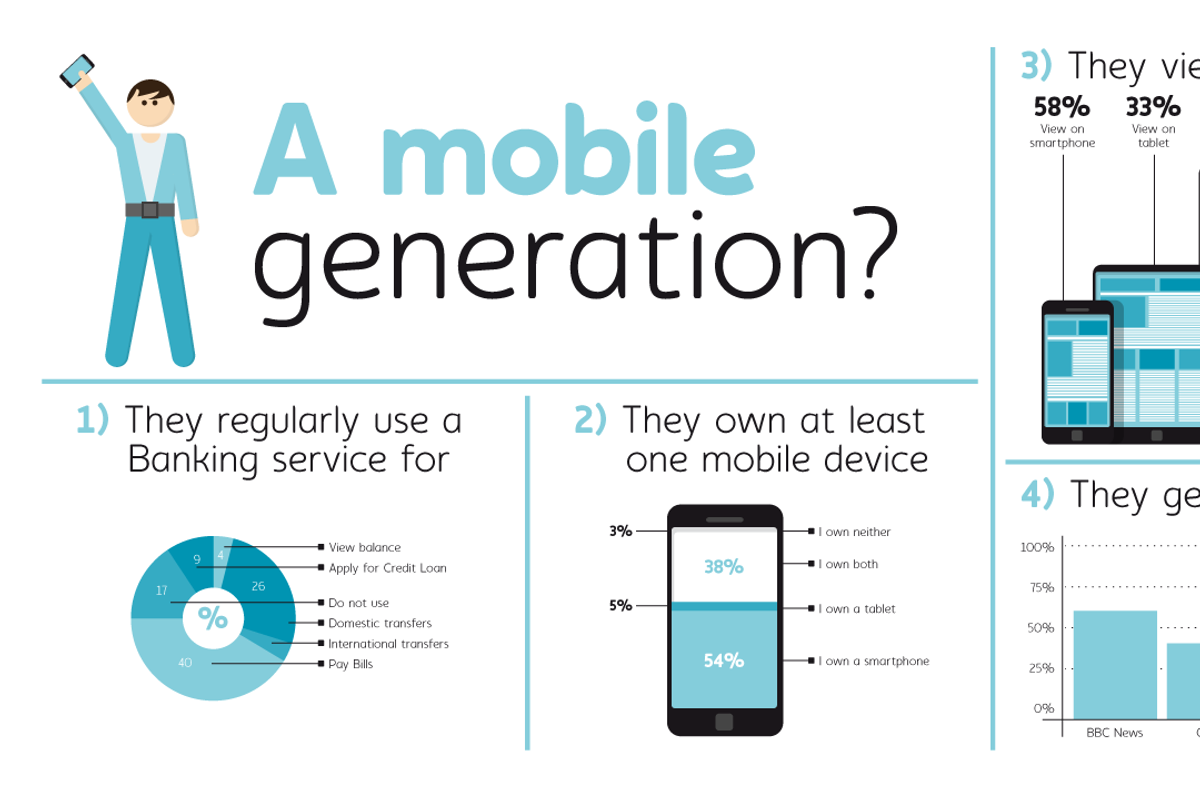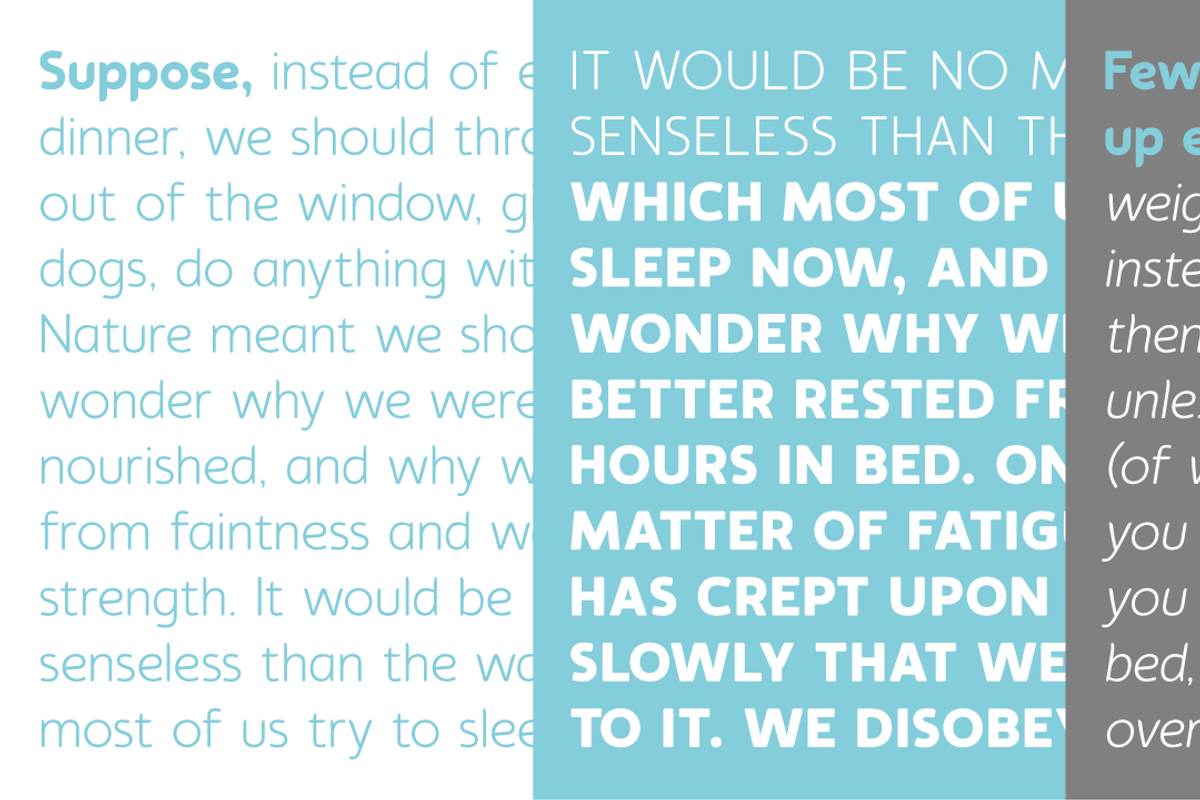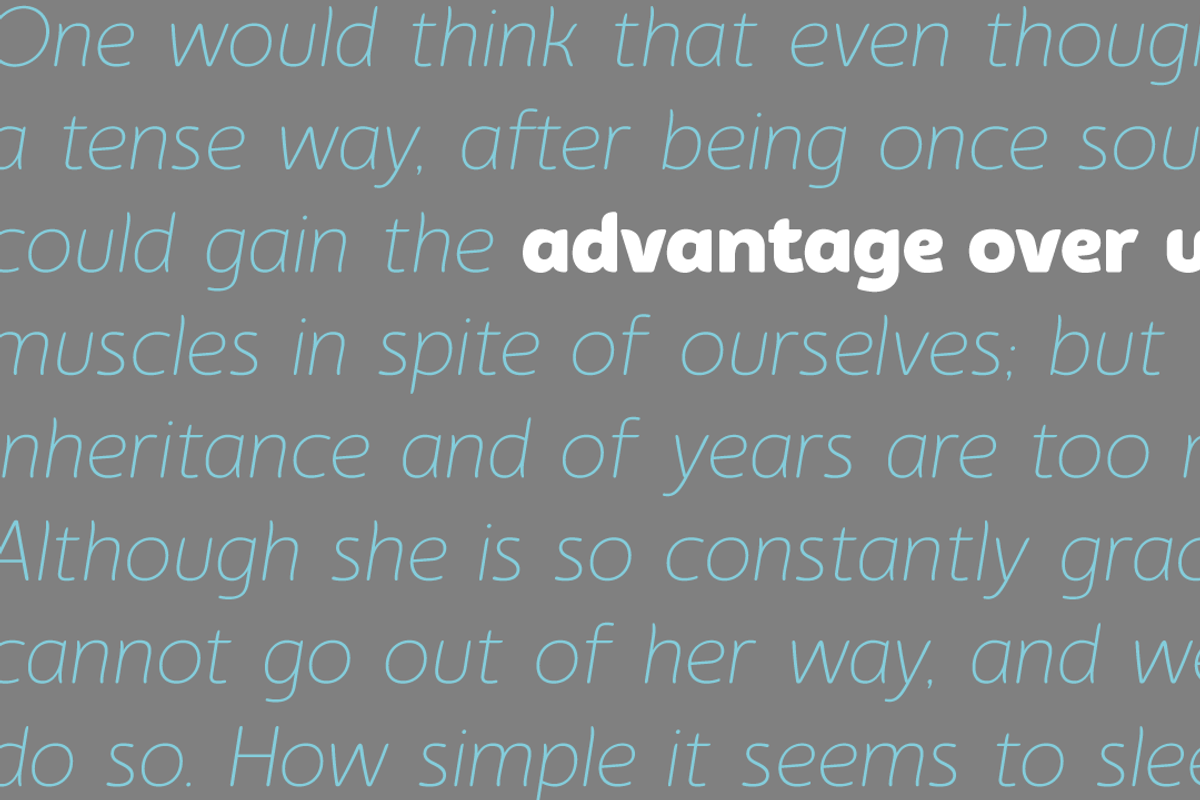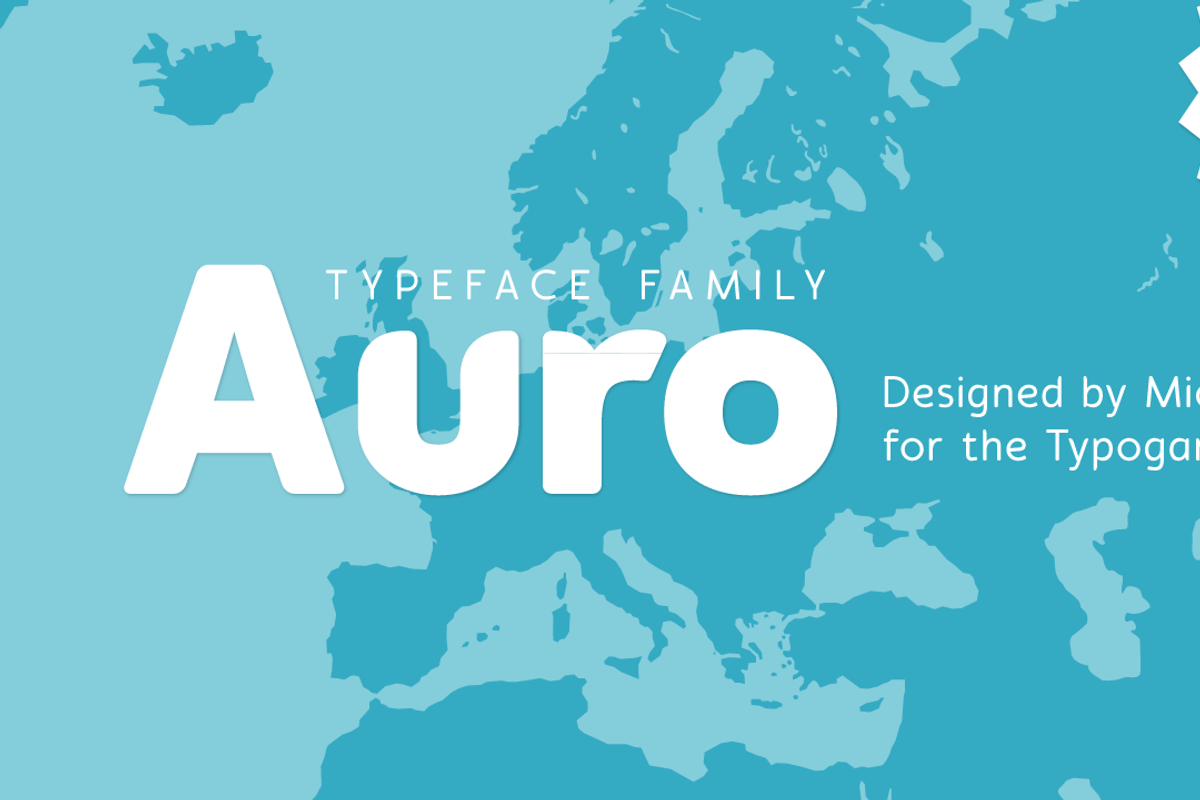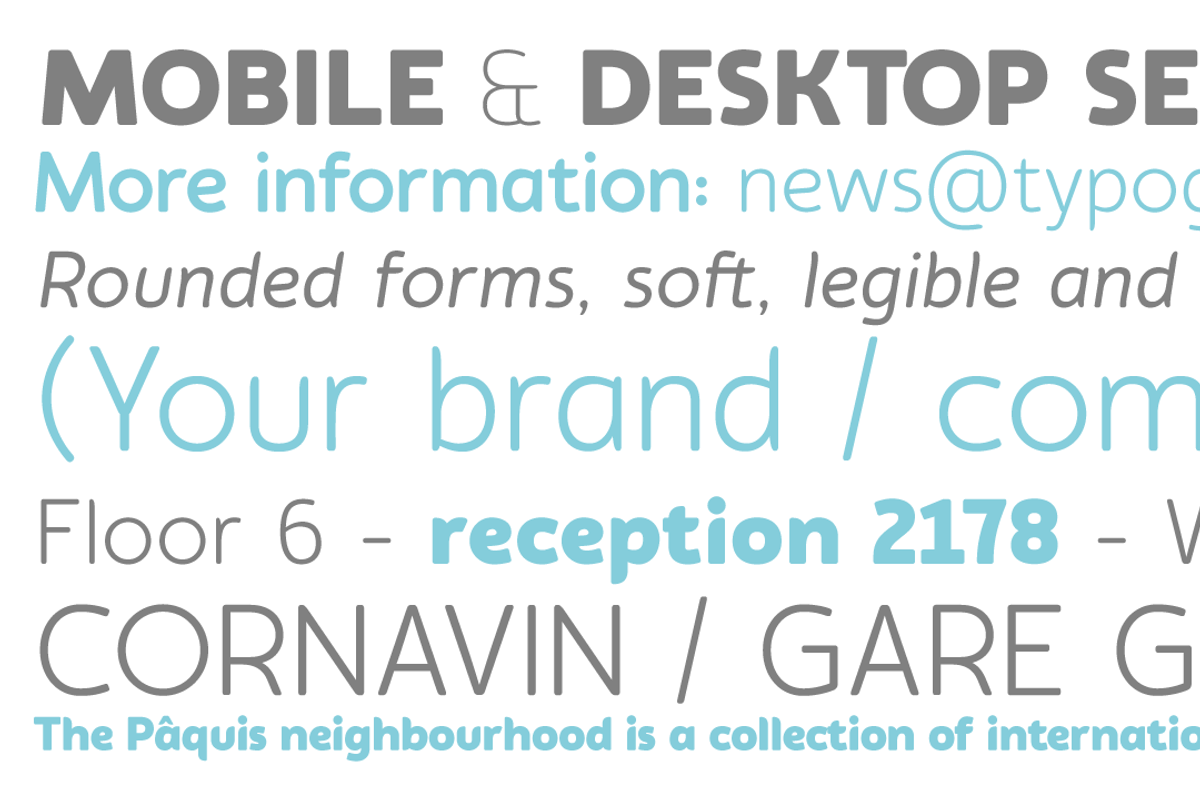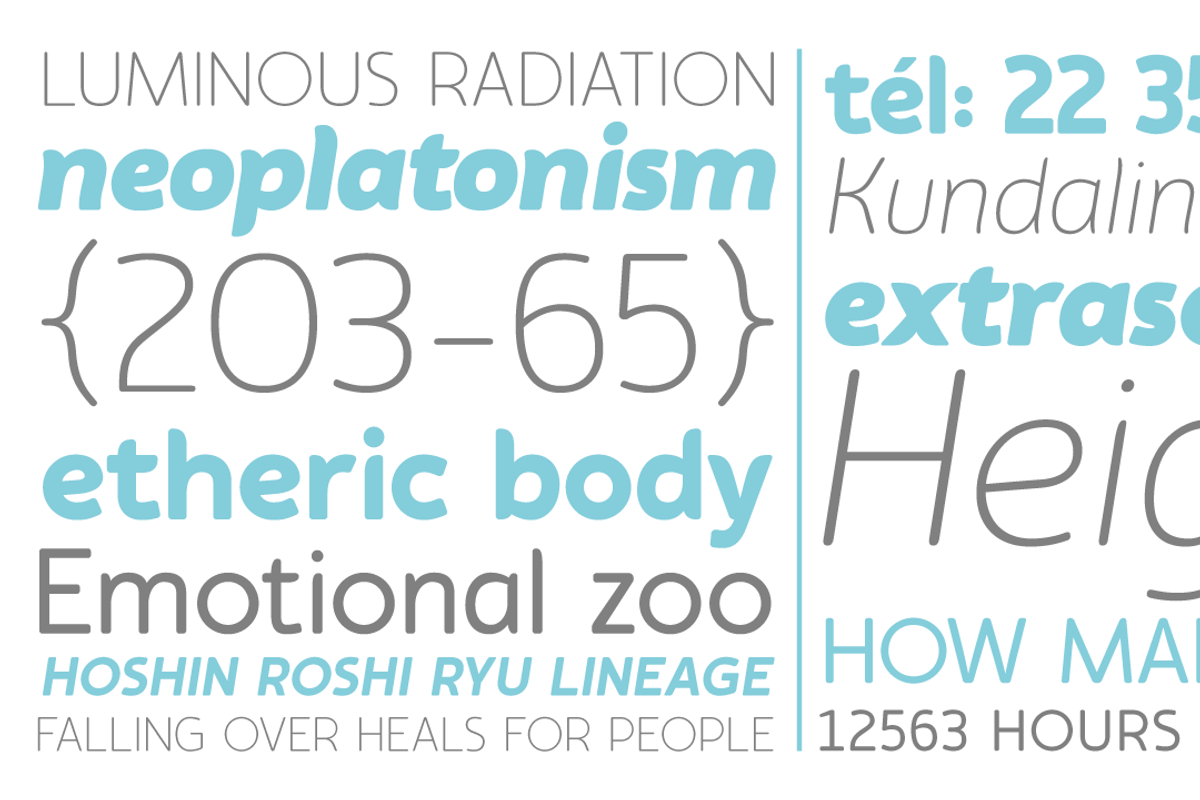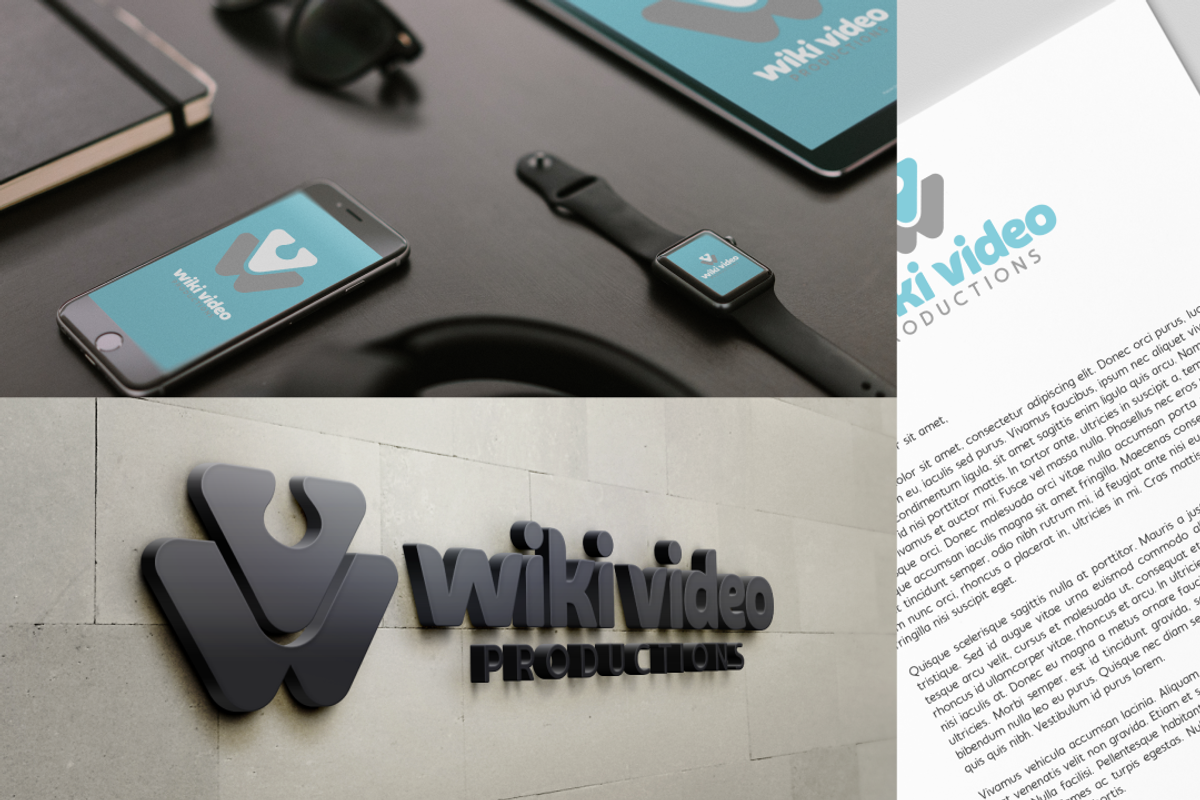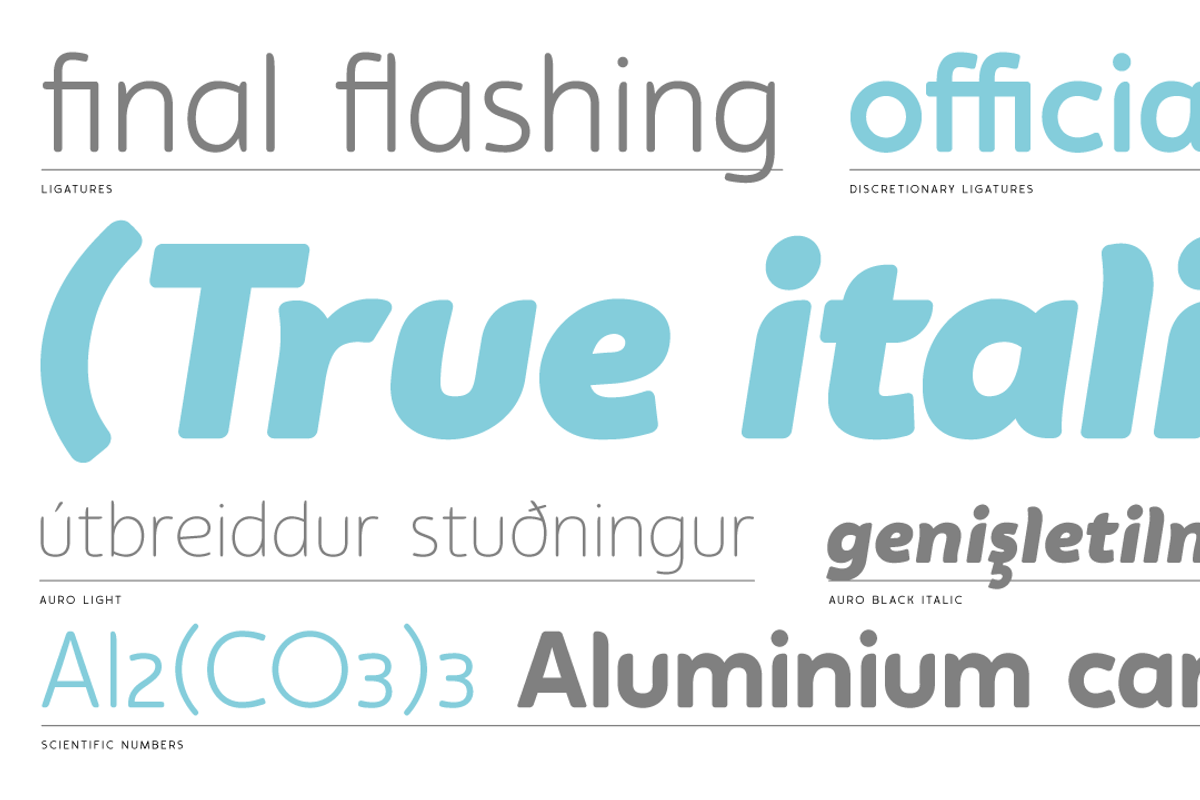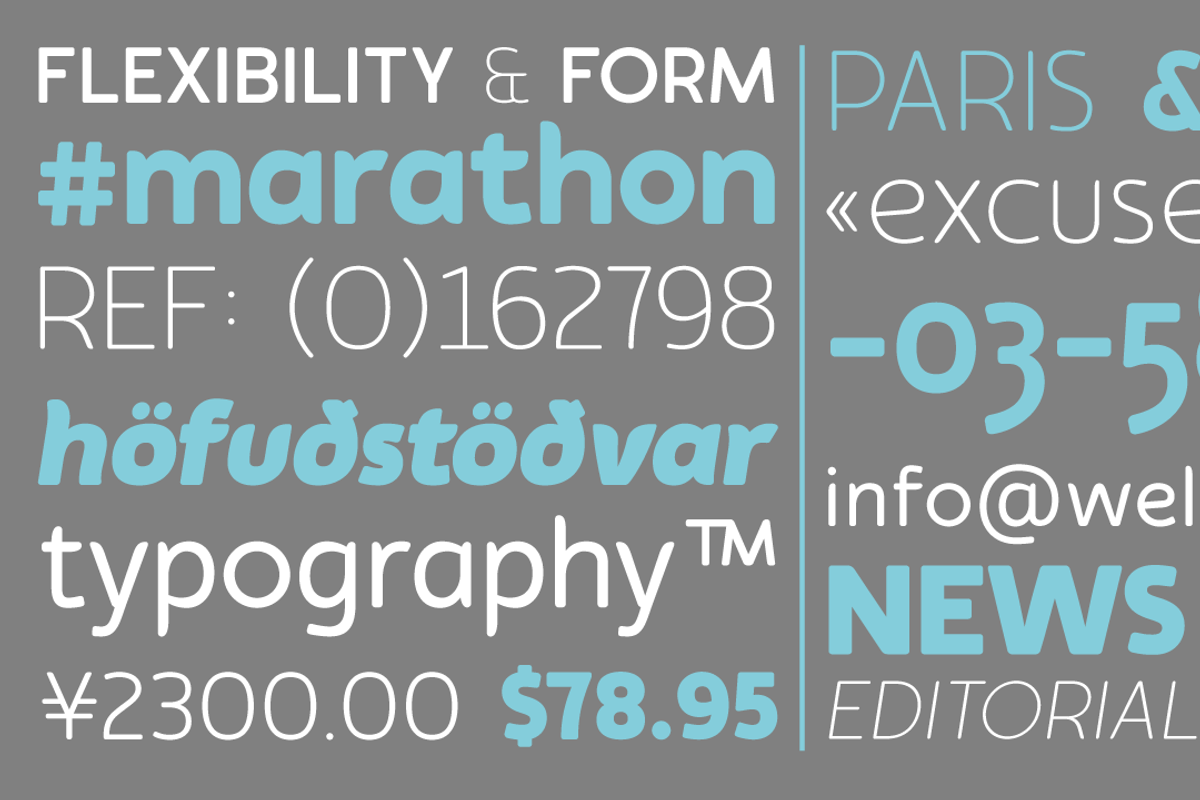
Auro
Auro is a friendly, rounded sans serif that was created as a contemporary typeface solution for branding, editorial use or any other application that requires legibility with a touch of personality. It includes an extended latin language support, covering languages from French or Spanish to Polish and Turkish. Auro won an Honorable Mention at the 8th Founder Awards for Typeface design in Beijing in 2016.
Weights included: Light, Light Italic, Book, Book Italic, Regular, Regular Italic, Medium, Medium Italic, Bold, Bold Italic, Black, Black Italic
Opentype features: Ligatures, Discretionary Ligatures, Alternate, Scientific numerals, Fractions,